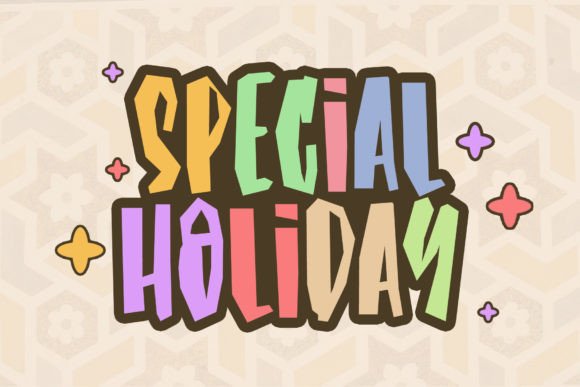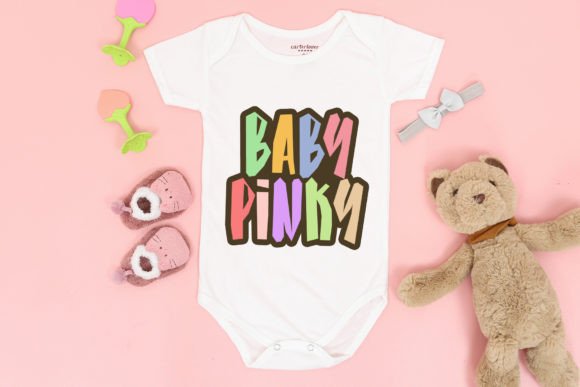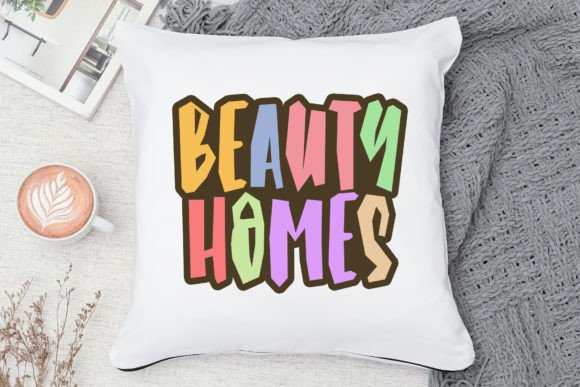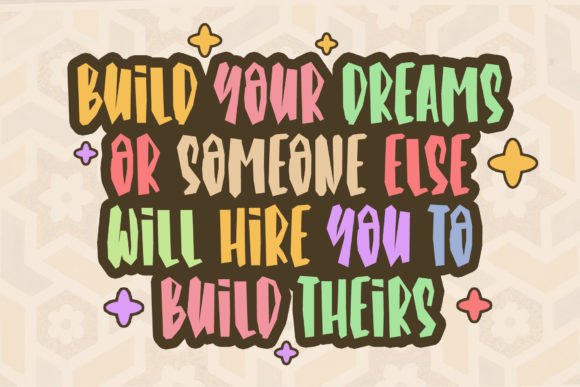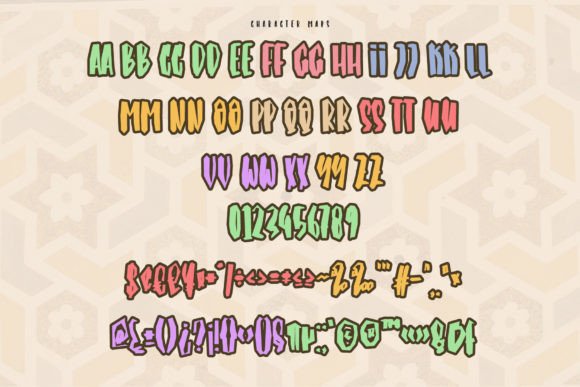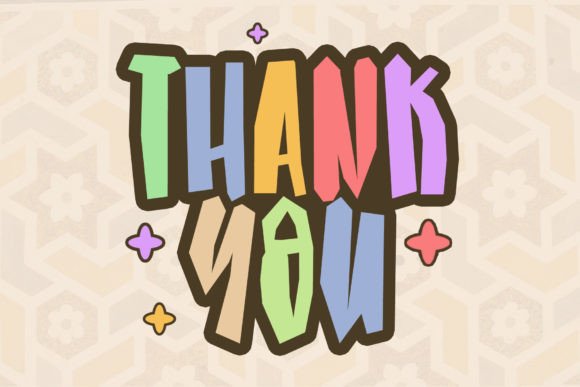
The Perfect Touch: Unlocking the Charm of Homemade Brushes Font
Have you ever found yourself scrolling through your favorite design inspiration boards, wishing you had that one special element to take your projects to the next level? We’ve all been there – stuck in a creative rut, searching for that perfect touch to bring our designs to life. For designers, finding the right font can be just the thing to spark inspiration and elevate our work.
Enter Homemade Brushes Font – a delightful display font that adds a dash of whimsy and charm to any design. This cute and quirky font is perfect for adding a personal touch to your projects, from social media graphics to wedding invitations and beyond. Whether you’re a seasoned designer or just starting out, Homemade Brushes Font is a valuable addition to your toolkit, guaranteed to bring a smile to your face and a new level of creativity to your work.
Key Features of Homemade Brushes Font
• Size: Multi-style font with 6 different font weights and 2 font styles (Regular, Brush)
• Unique Characteristics: Hand-drawn design with a natural, organic feel and subtle texture, perfect for creative and artistic projects
Homemade Brushes Font Review
As a designer, I was excited to dive into the Homemade Brushes Font. I was curious to see how this font would hold up in various design projects. ✨ One thing I appreciate about this font is its unique, hand-drawn feel, which adds a touch of personality to any design. The font’s brushstrokes and imperfections give it a friendly, approachable vibe that’s perfect for projects like food blogs, kids’ content, or handmade crafts.
• ✨ Unique, hand-drawn feel
• Perfect for projects that require a friendly, approachable vibe
• Great for adding a touch of personality to designs
However, I did encounter some limitations. ⚠️ The font’s spacing can be inconsistent, which can make it challenging to use in longer blocks of text. Additionally, some characters may appear a bit fuzzy or blurry, especially when scaled up or down. These issues can be distracting and may require some extra design effort to work around.
Overall, I’d say the Homemade Brushes Font is a solid choice for designers looking for a unique, hand-drawn feel. While it may have some limitations, its charm and personality make it a great addition to any design project.
Use the Homemade Brushes Font for creative projects, such as invitations, posters, and social media graphics.
Experiment with different font sizes and colors to create a unique visual effect.
Combine the font with other design elements, such as illustrations and graphics, to create a cohesive look.
Alternatives to Homemade Brushes Font for Designers
The Great Vibes Font is a beautiful, handwritten script font that’s perfect for adding a personal touch to your designs. It’s ideal for use in invitations, greeting cards, and other creative projects where a unique, handwritten feel is desired.
Compared to Homemade Brushes Font, Great Vibes Font has a more polished and refined look, making it suitable for a wider range of applications. While Homemade Brushes Font has a more rough-around-the-edges feel, Great Vibes Font is more elegant and sophisticated.
The Alex Brush Font is a elegant, handwritten script font that’s perfect for adding a touch of sophistication to your designs. It’s ideal for use in branding, advertising, and other applications where a high-end, luxurious feel is desired.
Compared to Homemade Brushes Font, Alex Brush Font has a more refined and polished look, making it suitable for more formal applications. While Homemade Brushes Font has a more casual, DIY feel, Alex Brush Font is more upscale and professional.